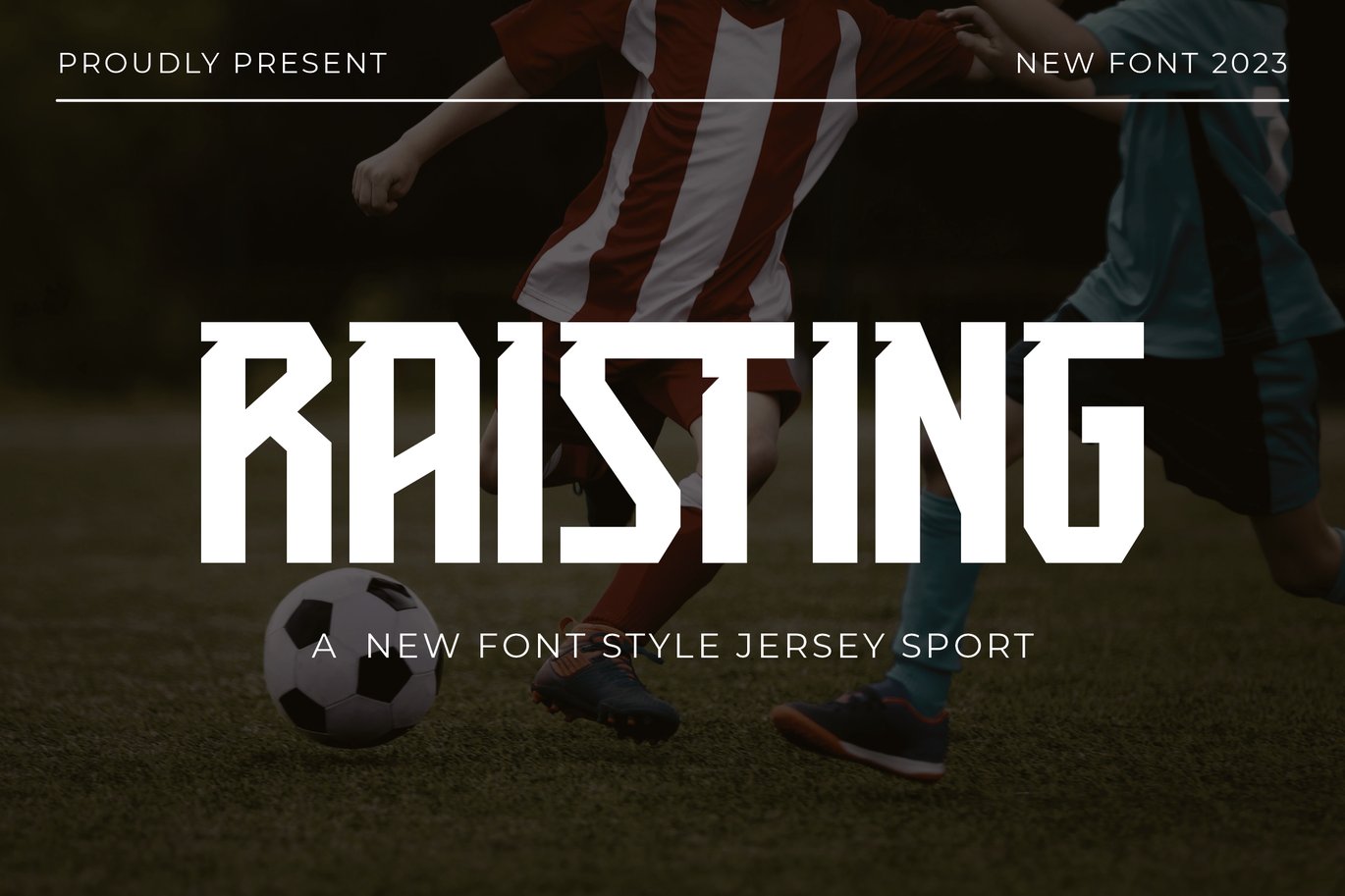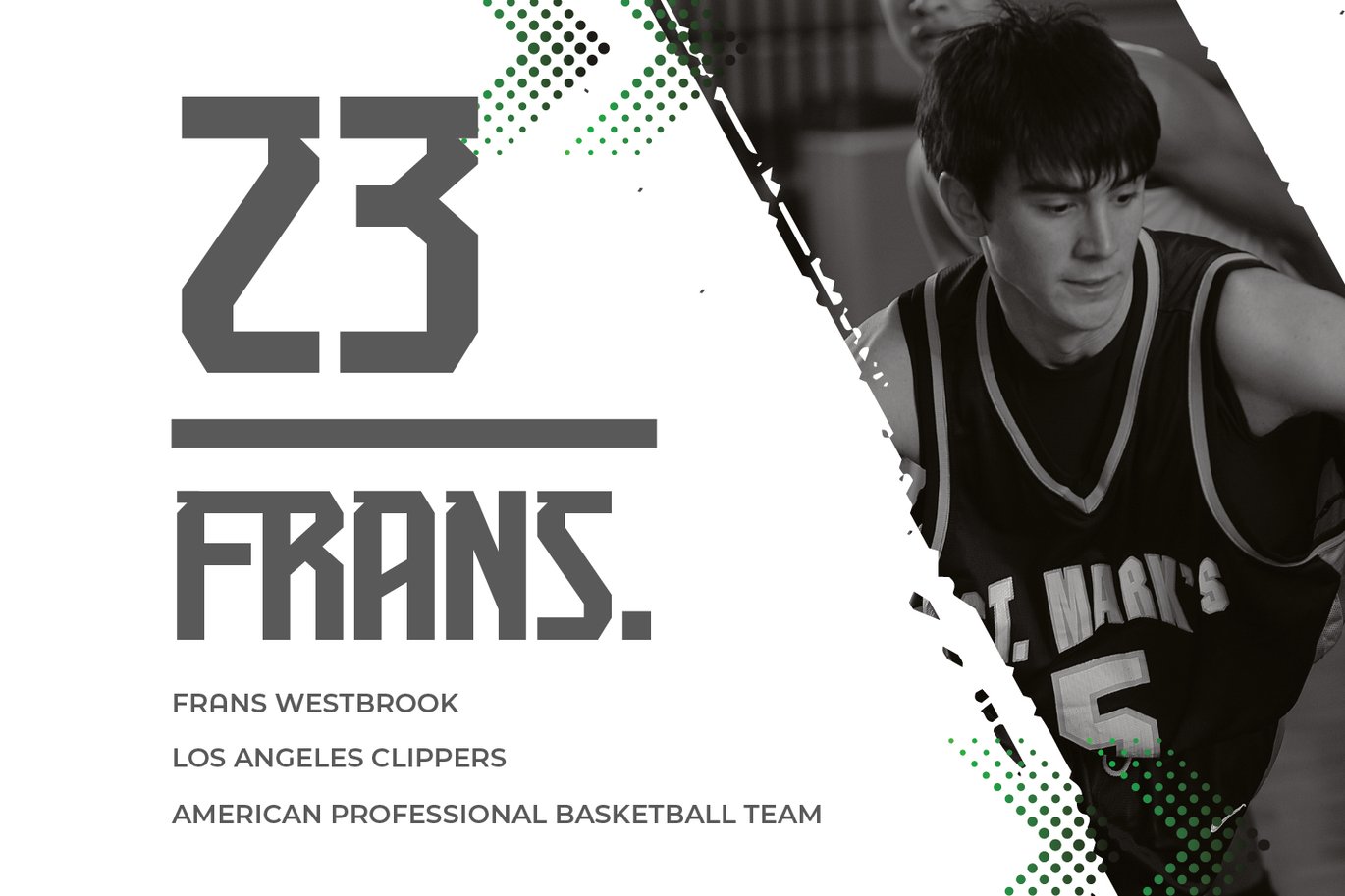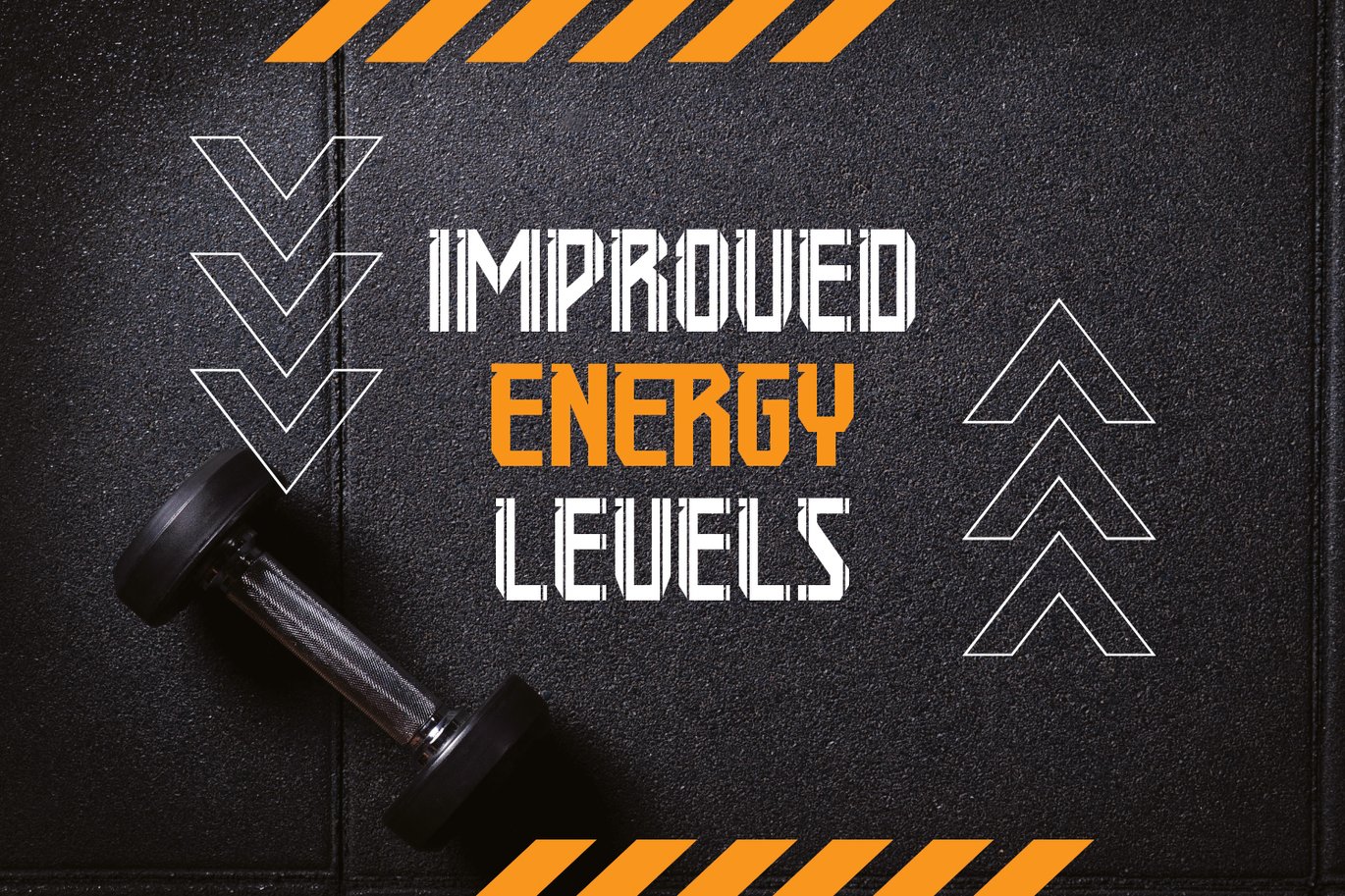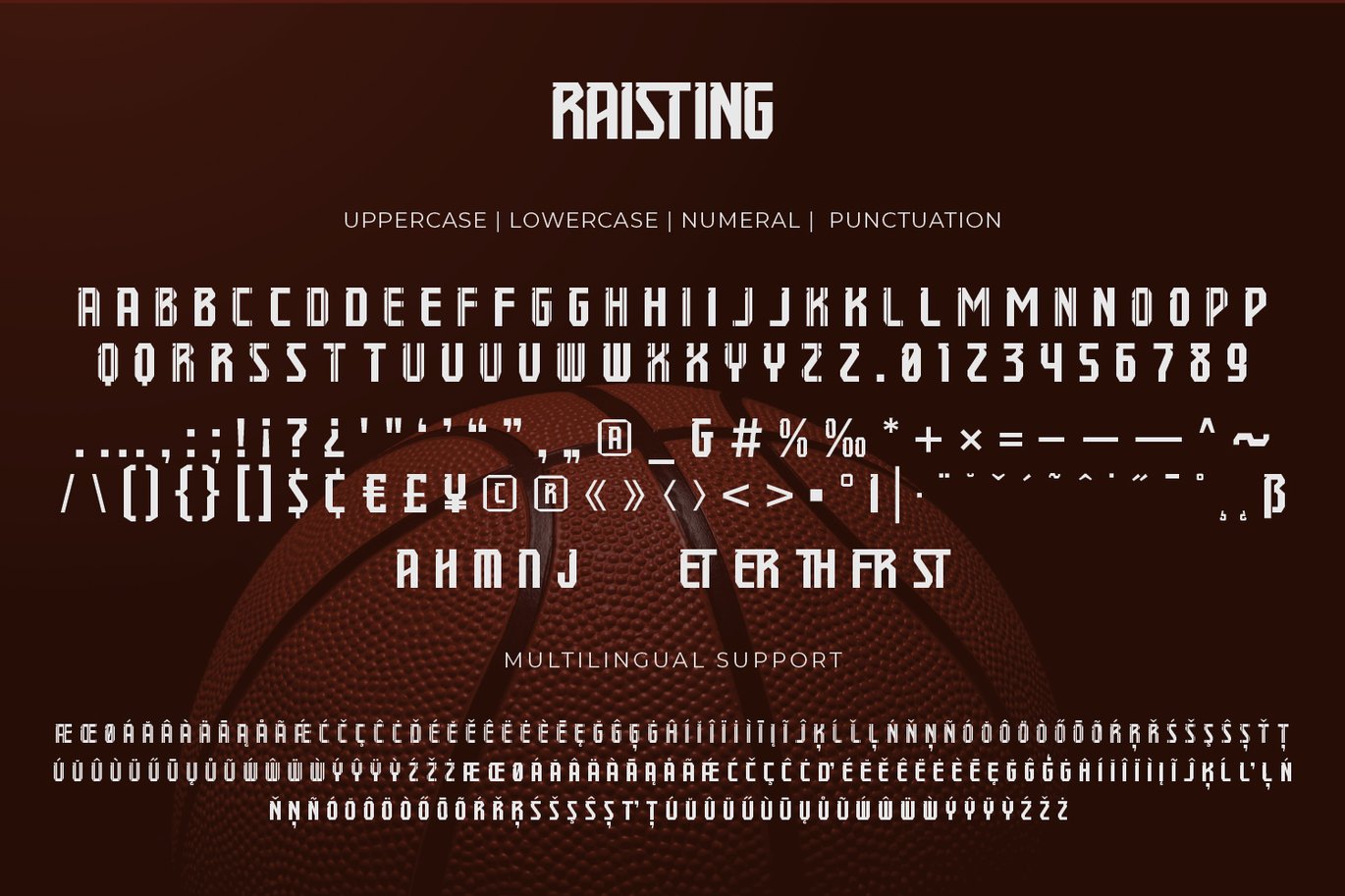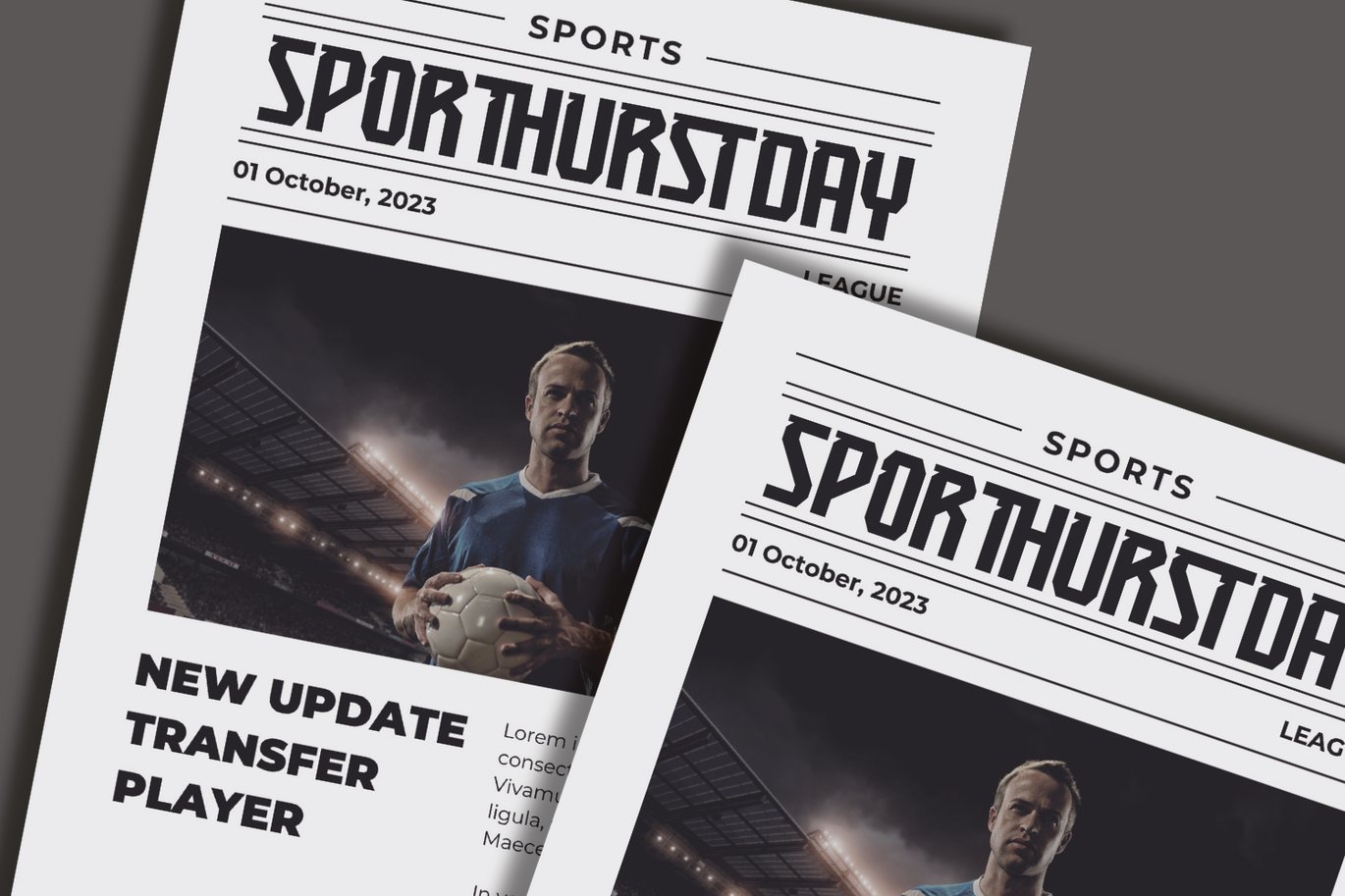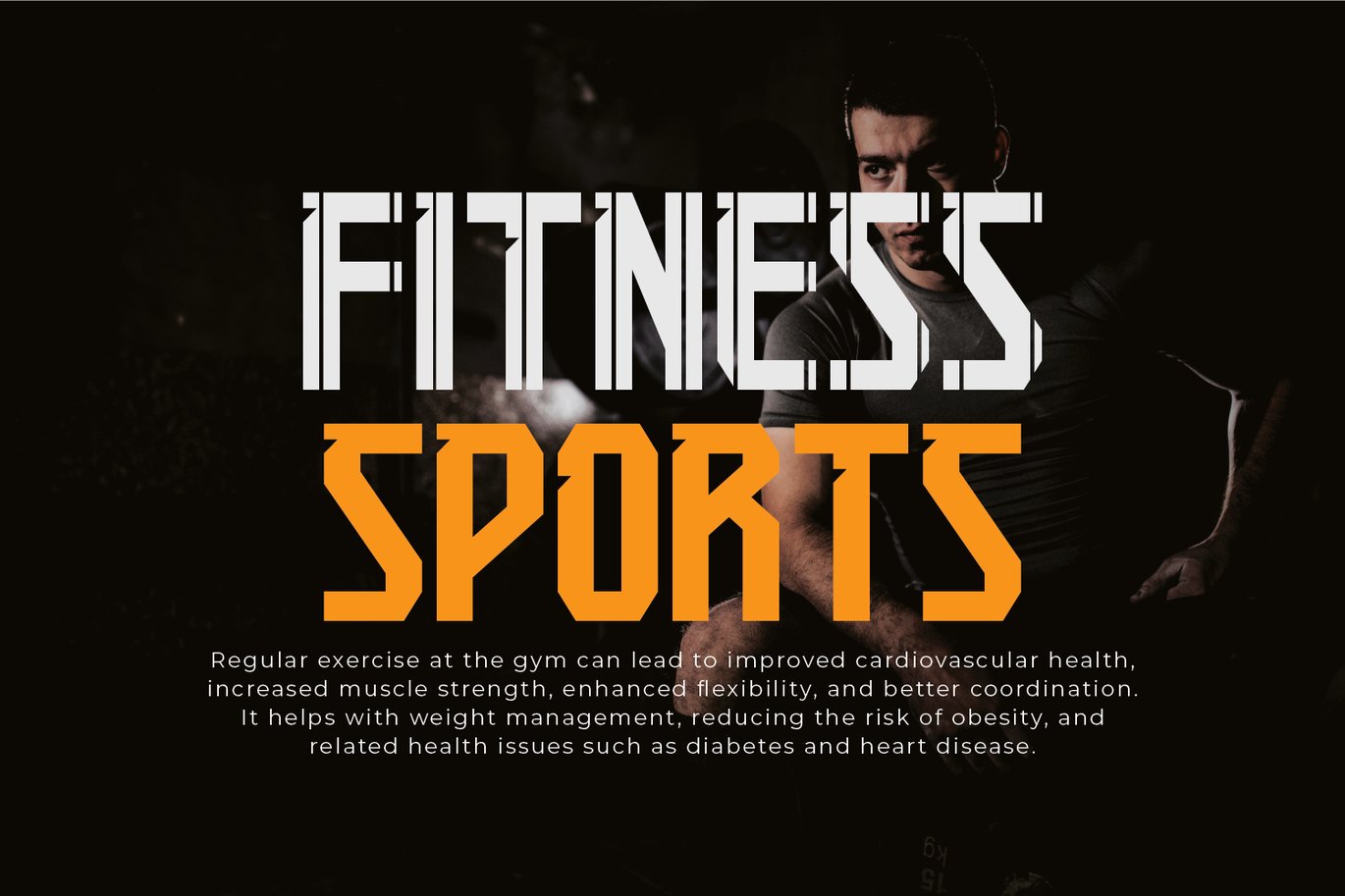
Raisting – Jersey Font
Raisting – Jersey Font with a calligraphy style, So beautiful on invitation like greeting cards, branding materials, business cards, quotes, posters, and more!